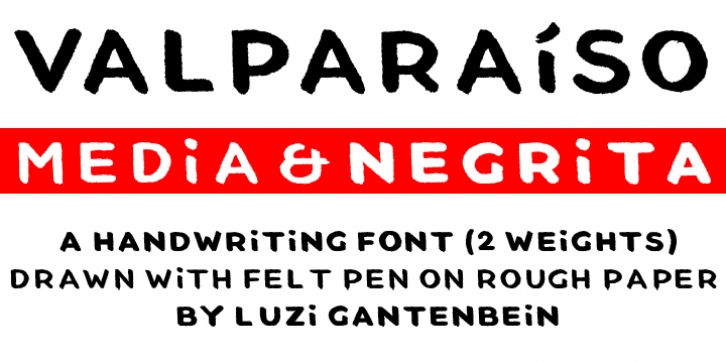
The first drafts of this majuscule handwriting font were developed in VALPARAíSO in Chile. The font reflects the atmosphere of this south pacific seaport. It is drawn by felt pen on rough paper. VALPARAíSO consists of two font weights, Media and Negrita, and includes 287 characters for 28 languages.